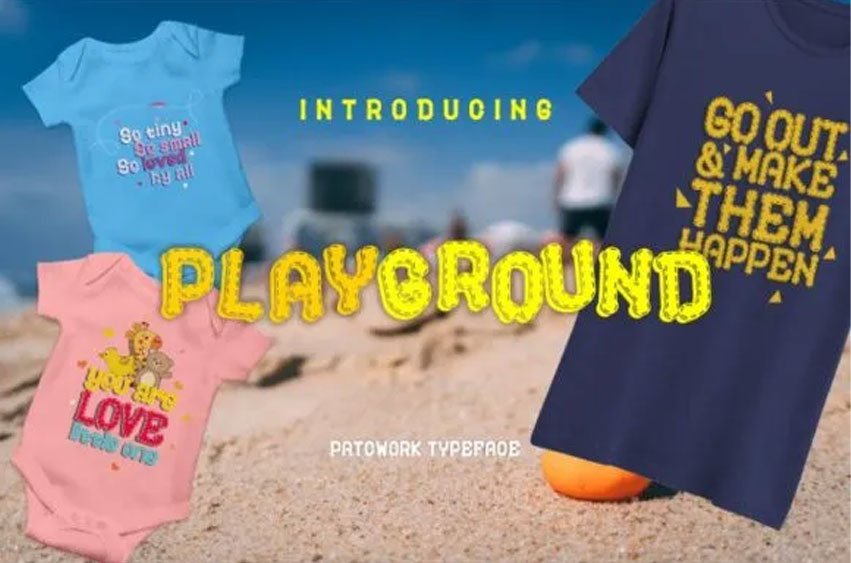
Playground Font
Playground Font  is a cute display font with an amazing feel.
Available in both a regular and a 3D version, it will turn any design project into a stand out!